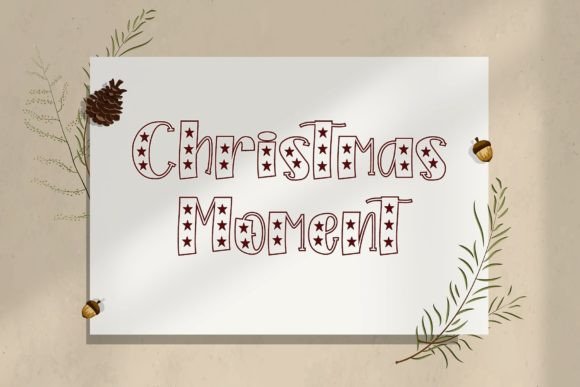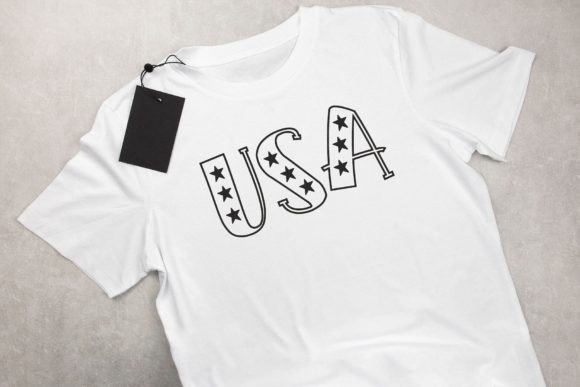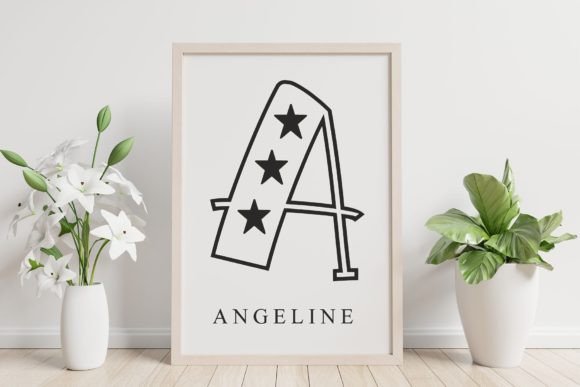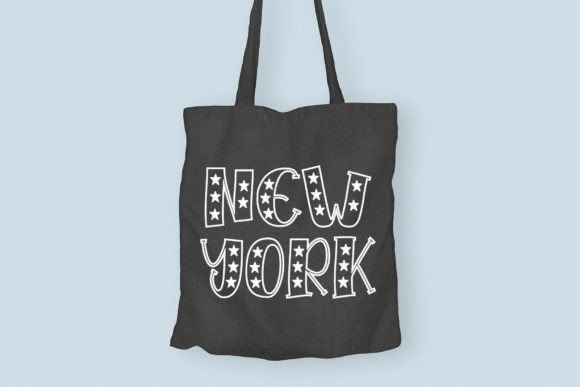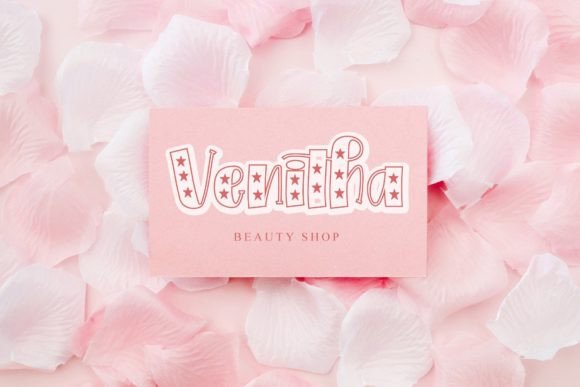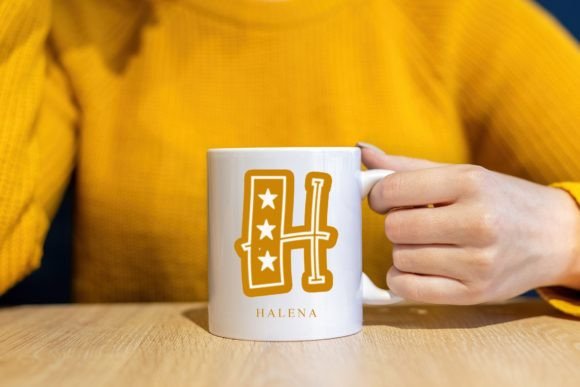
Introduction to Christmas Stars Font
As a designer, there’s nothing quite like the rush of finding the perfect font to bring your creative vision to life. Whether you’re working on a festive holiday campaign or a fun children’s book, the right font can make all the difference. For me, it’s that moment when I stumble upon a unique and charming font that I just know will elevate my design to the next level.
That’s exactly what happens when you discover the Christmas Stars Font – a delightful, hand-drawn font that’s sure to add a touch of magic to any project. With its playful, whimsical style, this font is the perfect design resource for anyone looking to create high-quality, eye-catching designs that stand out from the crowd.
Not only is the Christmas Stars Font a free download, but it’s also PUA encoded, making it incredibly easy to access and use all of its wonderful glyphs and swashes. Whether you’re working on a design for a transparent background or a complex layout, this font is sure to be a valuable addition to your design toolkit.
Key Features of Christmas Stars Font
- High-quality design with intricate details of Christmas stars, ideal for festive and holiday-themed projects.
- Transparent background, allowing for easy customization and versatility in design applications.
- Designed with a high resolution of 300 DPI, ensuring crisp and clear text display in various sizes.
- Comes in a range of sizes, from 8pt to 100pt, to suit various design requirements and creative projects.
- Perfect for use in digital and print media, including invitations, cards, and other festive designs.
Honest Review: Christmas Stars Font
I recently had the chance to try out the Christmas Stars Font, and I must say it’s a great addition to any design project. The font is perfect for creating a festive atmosphere, and its high quality makes it stand out from other design resources.
What works well is the font’s transparent background, which allows for seamless integration with any image or background. The design is also very versatile, making it suitable for a wide range of creative projects, from holiday cards to social media graphics.
- ✨ High-quality design that’s perfect for festive projects
- ✨ Transparent background for easy integration
However, I did notice a few limitations. The font is only available in a few weights, which may not be suitable for all design needs. Additionally, the font’s style may not be to everyone’s taste, so it’s essential to consider your audience before using it.
Overall, I’m impressed with the Christmas Stars Font. Its high quality, transparent background, and free download make it a great resource for designers. While it may have some limitations, it’s an excellent choice for any creative project that requires a festive touch.
The Christmas Stars Font is perfect for holiday-themed designs, such as Christmas cards, invitations, and gift tags. It can also be used in general design projects where a festive and playful font is required.